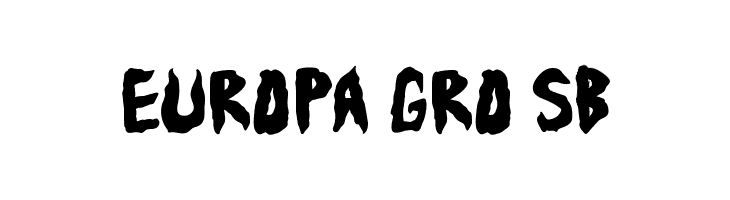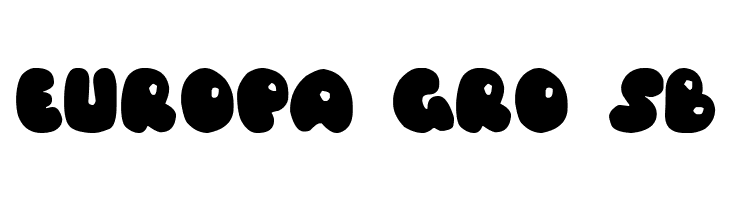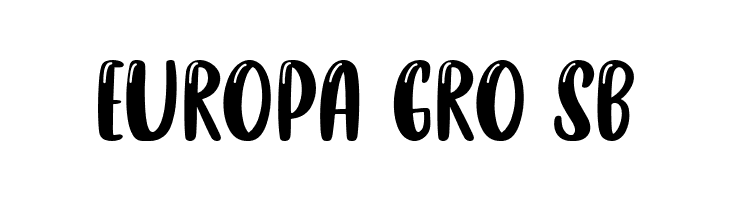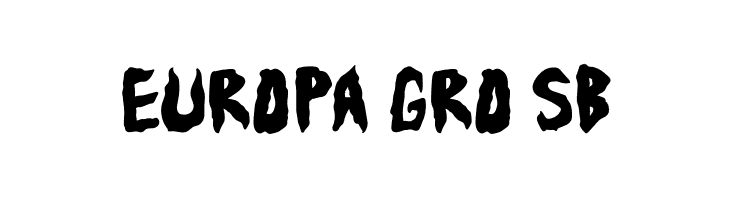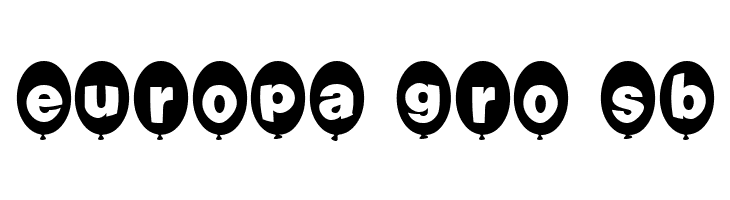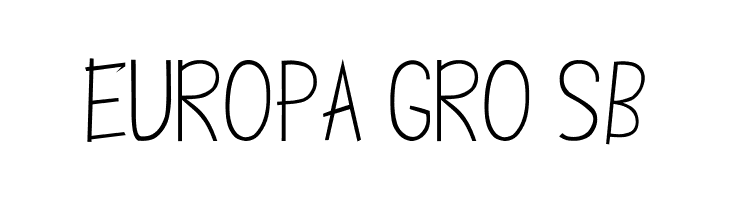
A playful, bold font with rounded, balloon-like characters.
A playful font with characters inside balloon shapes, perfect for festive designs.
A playful, balloon-like font with rounded, bold characters.
A bold, jagged font with a hand-drawn, energetic style.
A bold, rugged font with a hand-painted, brush-stroke style.
A playful, handwritten-style font with smooth, rounded characters.
A casual, handwritten-style font with a playful and informal appearance.
A lively, handwritten-style font with dynamic, elongated characters.
A playful, handwritten script font with smooth, flowing characters.
A fluid, handwritten-style font with a personal touch.